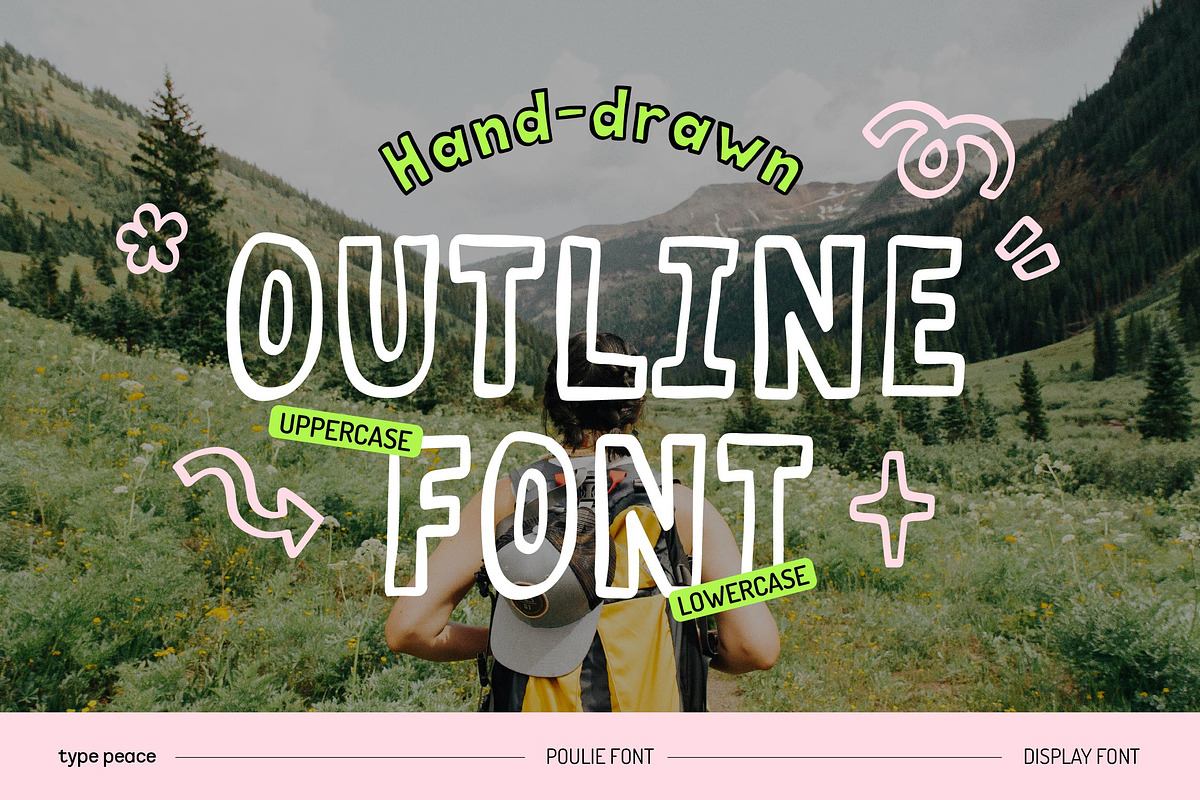
POULIE | Outline Display Font Free Download
Please note, to use this font for commercial purposes, you must purchase the full version. POULIE is a striking outline display font that combines bold design with modern flair. Perfect for headlines, posters, logos, and branding projects, this font offers a unique, eye-catching style. Its clean outline design gives your text a dynamic, stylish appearance that works great for contemporary designs. Whether you're working on a creative ad campaign or a modern logo, POULIE brings impact and clarity to your work. Test it out and enjoy free download access for personal use. Experience the bold style of POULIE | Outline Display Font Free Download before purchasing the commercial license. Add an impactful, modern touch to your designs with POULIE.